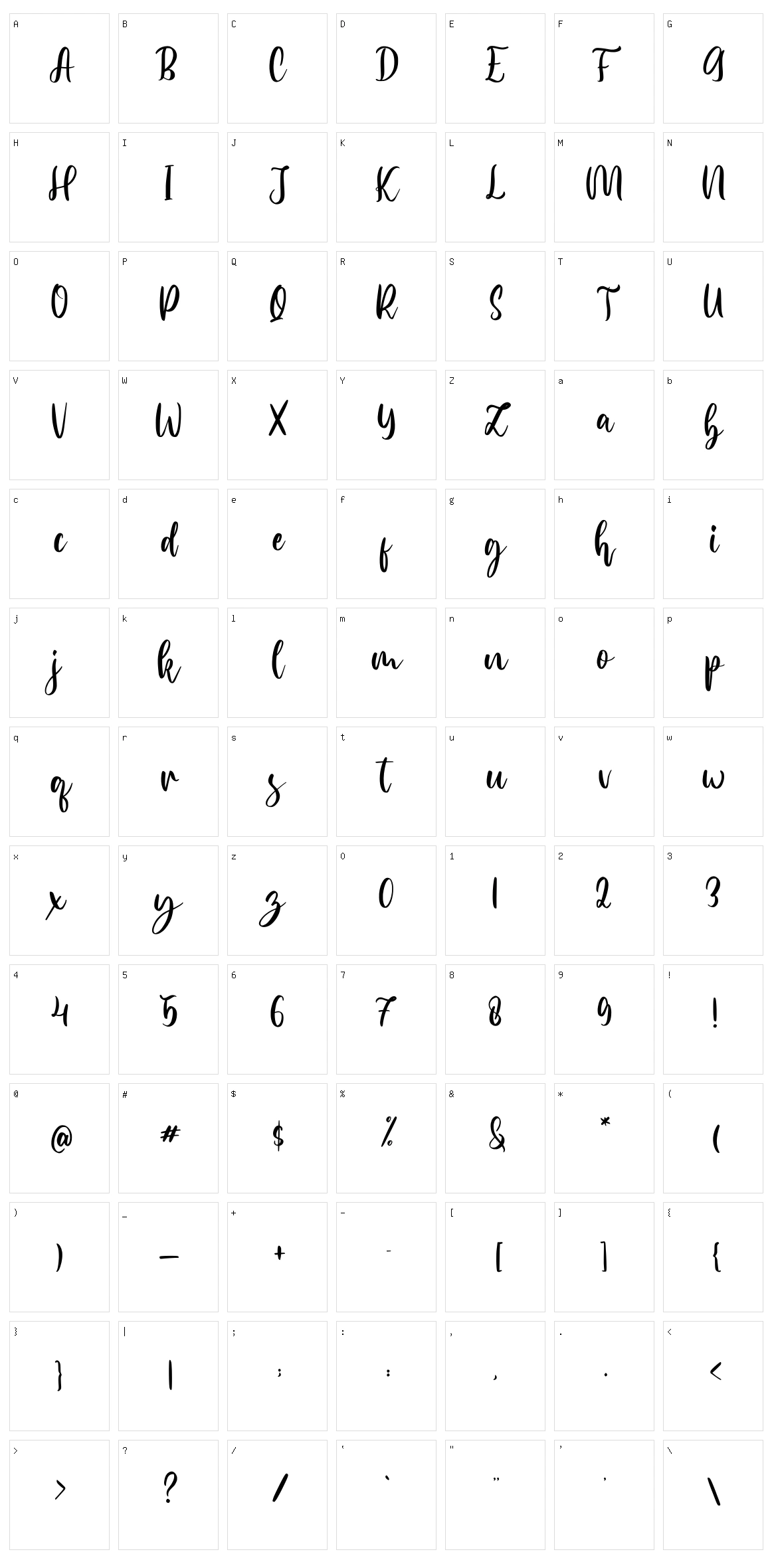
The free font Hellomate is carefully designed by FatmaStudio, showcasing a thoughtful balance of creativity and usability and falls under the Script font style. When you download the ZIP file, it contains only 41.91 KB of font files, making it lightweight and quick to download. Please review the license details below to understand permitted usage and distribution rights. If license information is not available, we recommend using this font for personal projects only or contacting the author directly for commercial usage permissions.